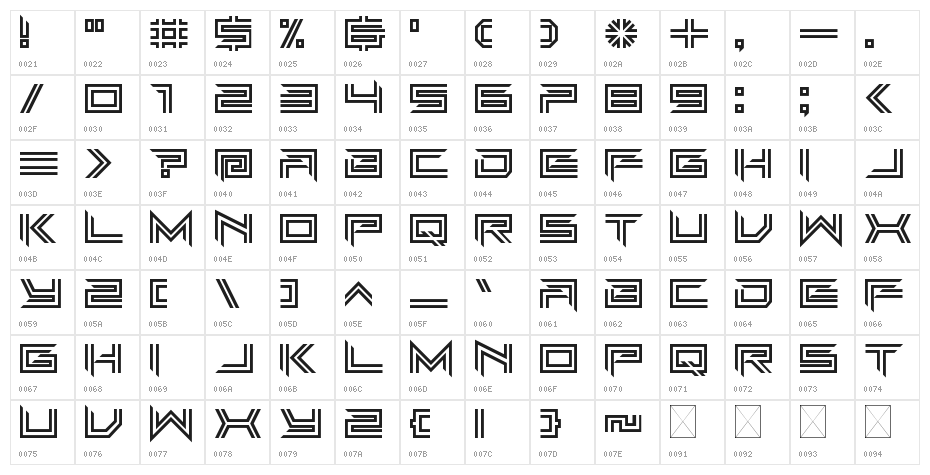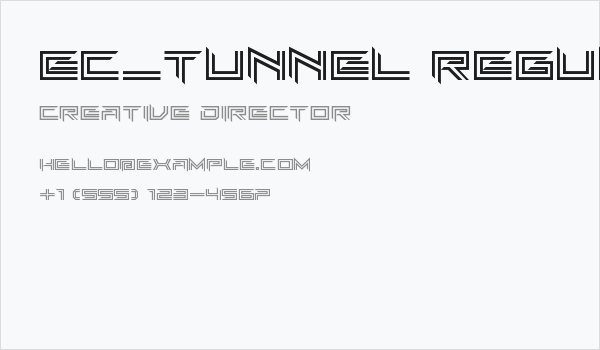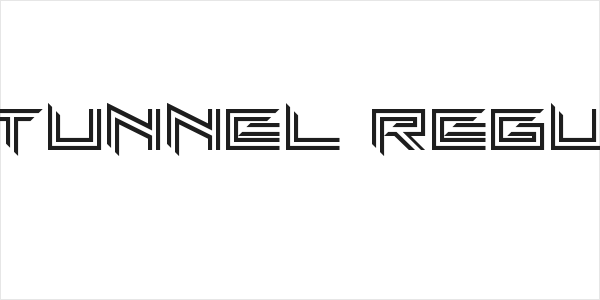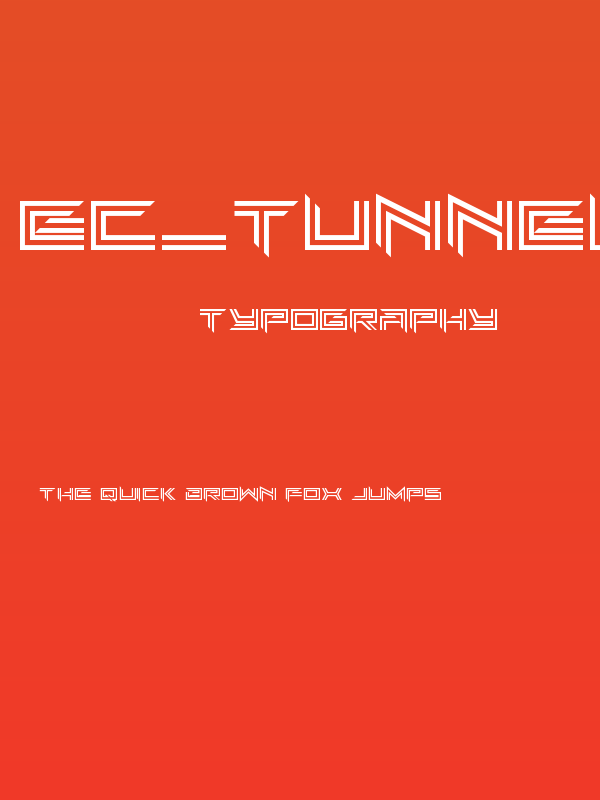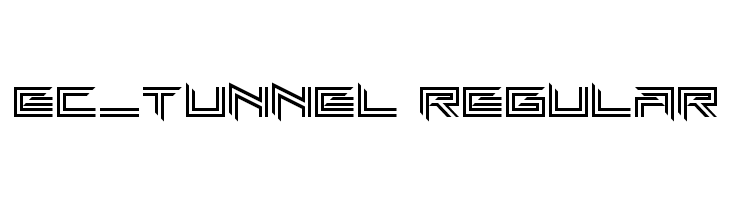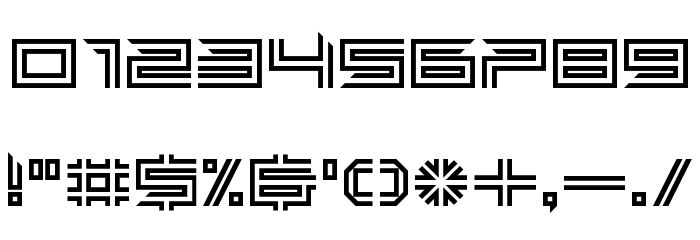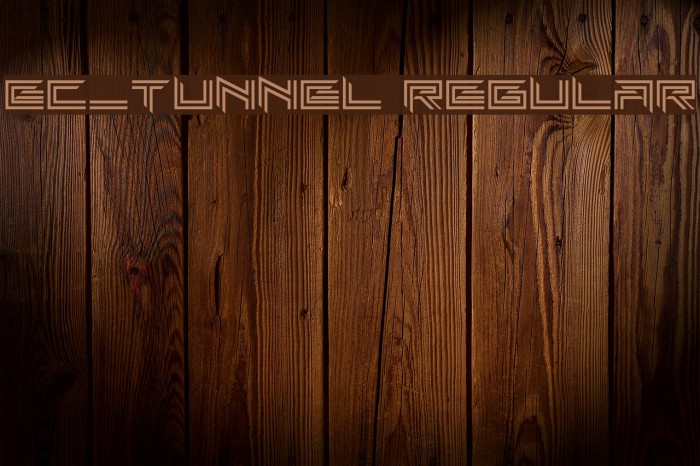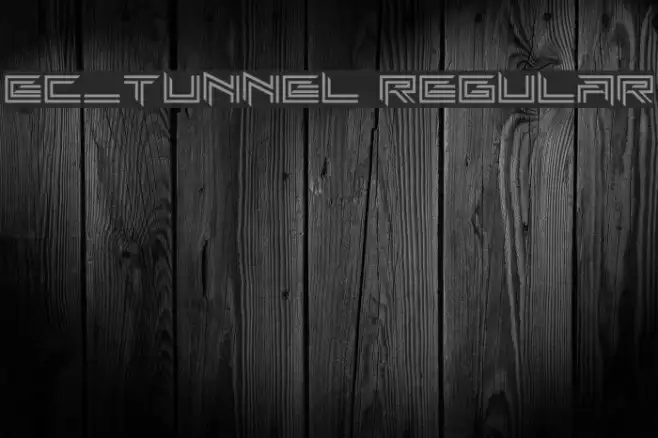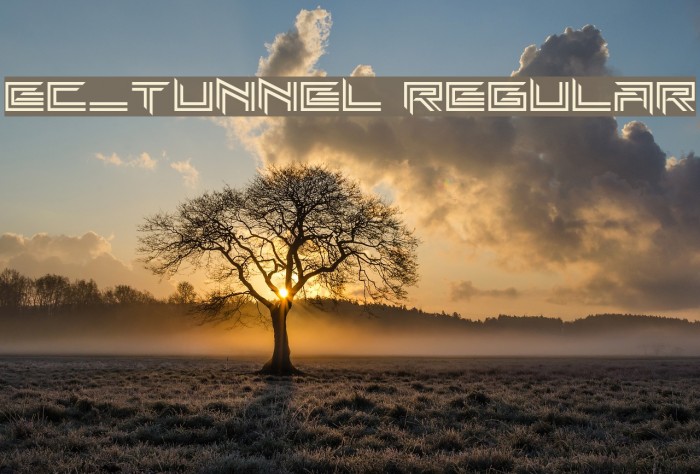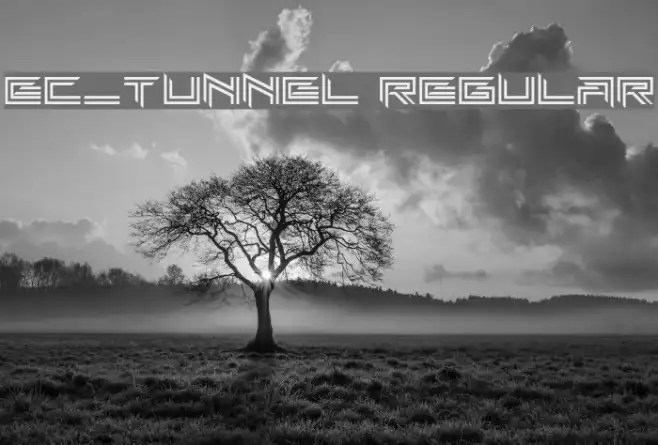
EC_Tunnel Regular Font
EC_Tunnel Regular Description
This font features a futuristic and geometric design, characterized by sharp angles and a bold, structured appearance. Each character is crafted with precision, incorporating a series of parallel lines and angular cuts that create a sense of movement and modernity. The uppercase and lowercase letters maintain a consistent style, offering a cohesive look across different text applications. The numerals and special characters follow the same design principles, ensuring uniformity throughout. This font is ideal for projects that require a contemporary and edgy aesthetic, such as technology branding, sci-fi themed designs, or modern art installations.
| Proposed Projects | Ideal for technology branding, sci-fi themes, modern art installations, and edgy graphic designs. |